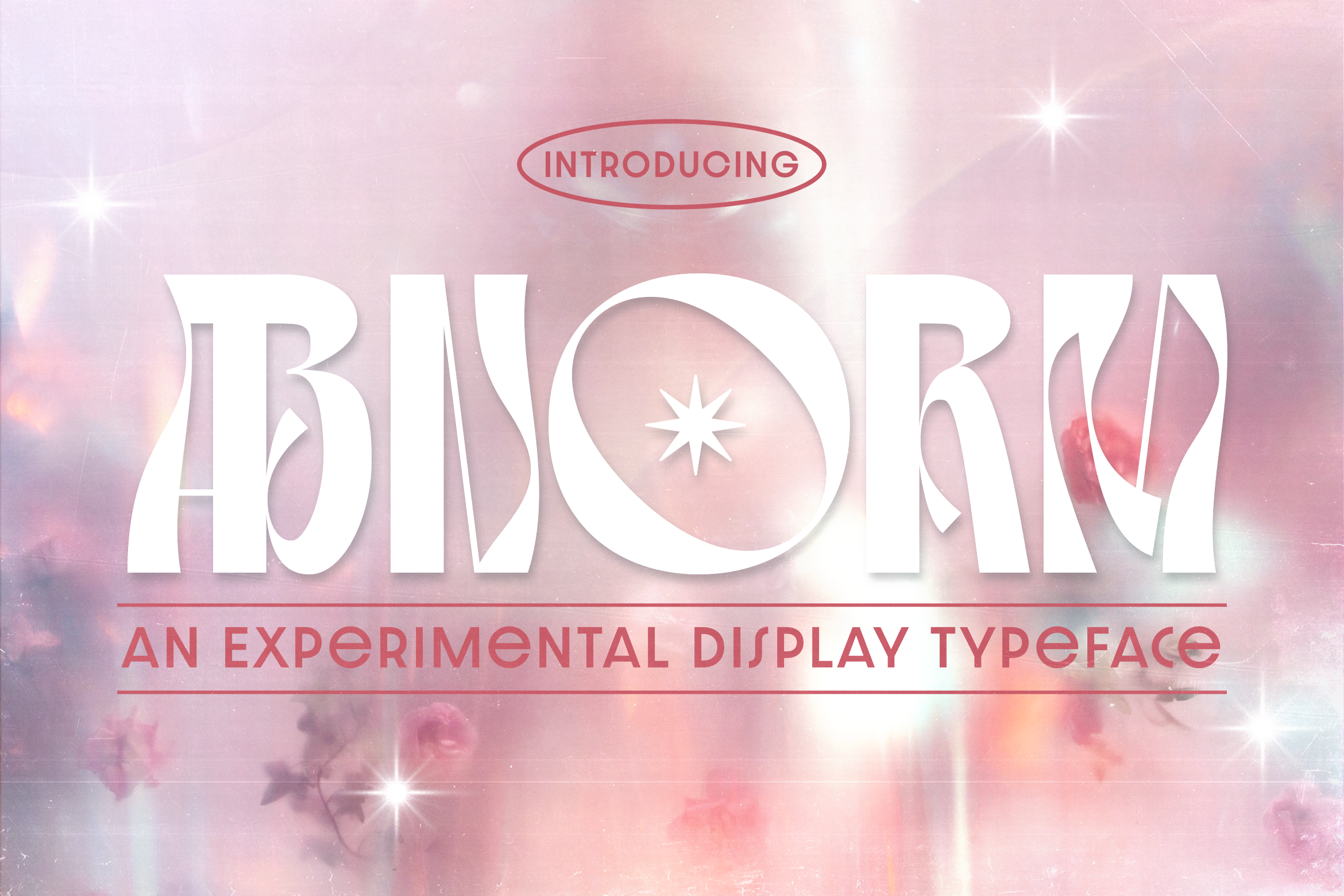
Abnorm Experimental Display Typeface
Ready to break the rules and turn heads? Step outside the ordinary with bold, unexpected style.
Introducing Abnorm - An Experimental Display Typeface.
From striking logos to standout digital and print designs, Abnorm demands attention. Push creative boundaries and let your visuals speak louder, weirder and prouder.